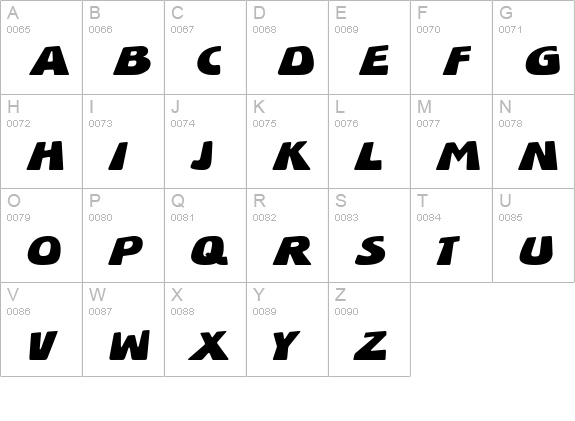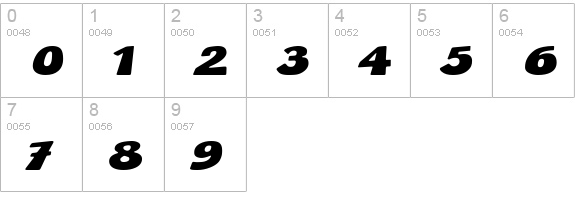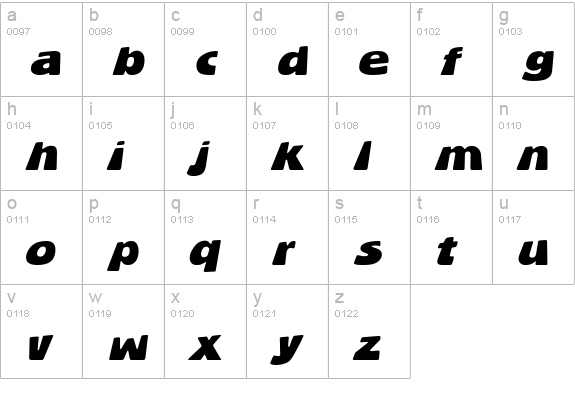
BlueStone Font Details
BlueStone is a captivating and elegant font that exudes sophistication and style. Its sleek lines and graceful curves make it a perfect choice for a wide range of design projects, from branding to stationery to signage. The timeless appeal of BlueStone makes it a versatile option for both print and digital applications. Best of all, BlueStone is available for free download at FontsMarket.com. This means that you can easily access and use this stunning font in your own projects without any cost. Embrace the beauty and versatility of BlueStone for your next design endeavor and watch as it elevates your work to new heights.